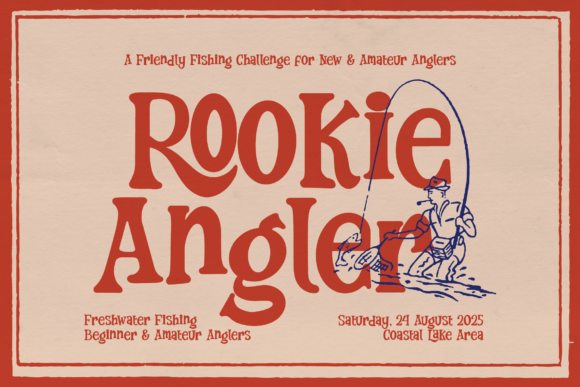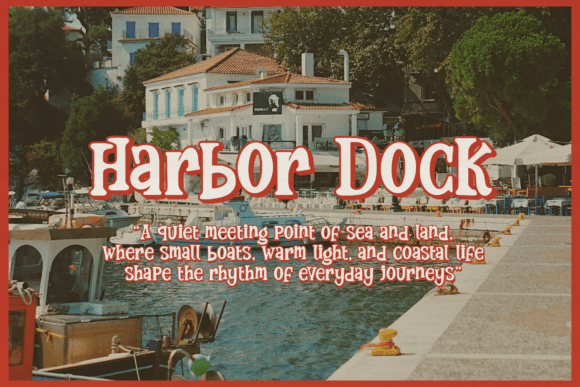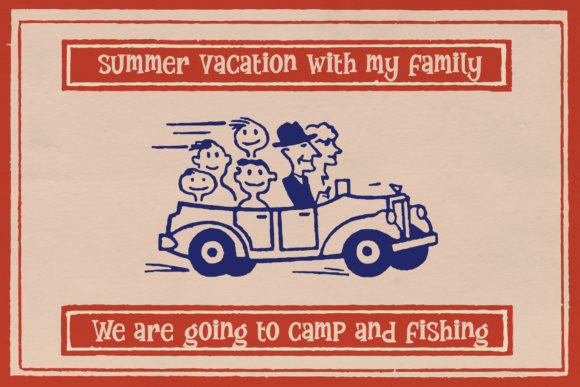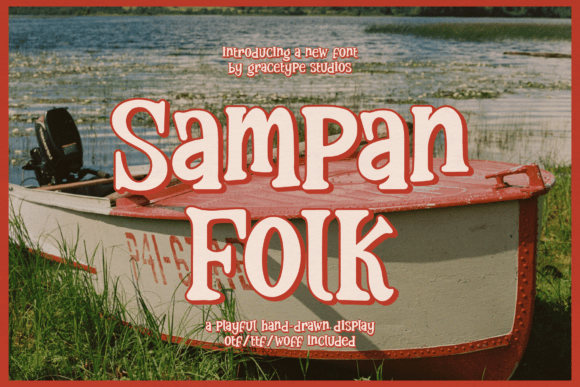
Introduction to Sampan Folk Font
Sampan Folk Hand-Drawn Display Sampan Folk font is a charming, hand-drawn display typeface that captures the essence of rustic, lakeside living and folk-art heritage.
Created by Gracetype Studios, the Sampan Folk typeface features playful, wobbly stems and flared terminals that give it a unique, organic personality The glyphs in the Sampan Folk font are designed with an uneven, handmade quality that feels authentic and nostalgic, reminiscent of vintage travel posters or hand-painted boat signs.
Key Features of Sampan Folk Font